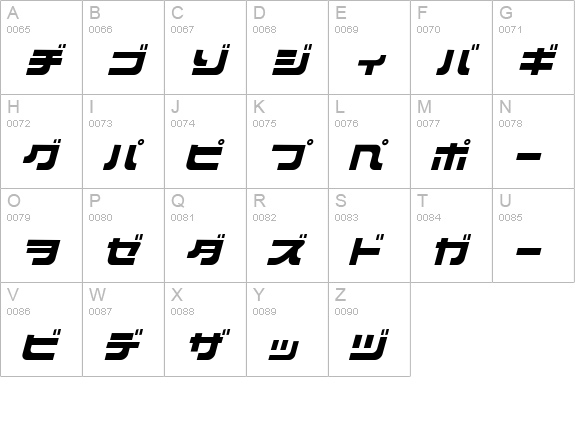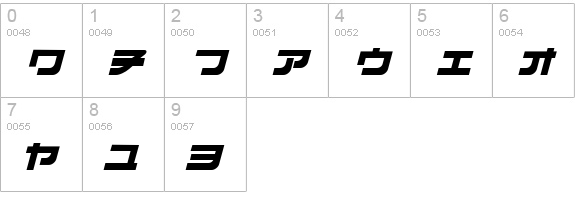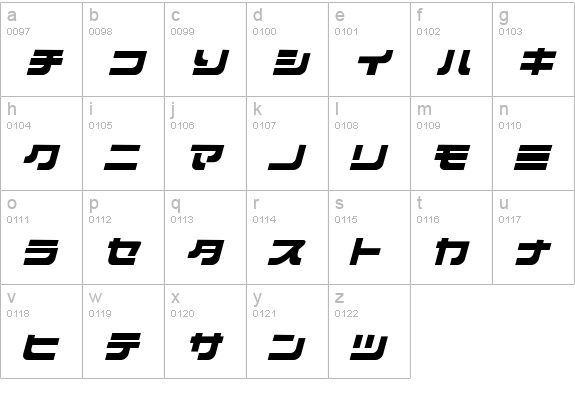
Overloader Font Details
The Overloader font is a striking display typeface that exudes power and modernity. With its bold, futuristic letterforms and sharp edges, Overloader commands attention and adds a touch of contemporary flair to any design project. Whether you're looking to make a statement with a headline, logo, or poster, this font is sure to leave a lasting impression. The best part? Overloader is available for free download at FontsMarket.com. This means you can easily access this eye-catching font and incorporate it into your creative endeavors without any cost. Don't miss out on the opportunity to elevate your designs with the dynamic and impactful Overloader font – download it today and unleash your creativity!